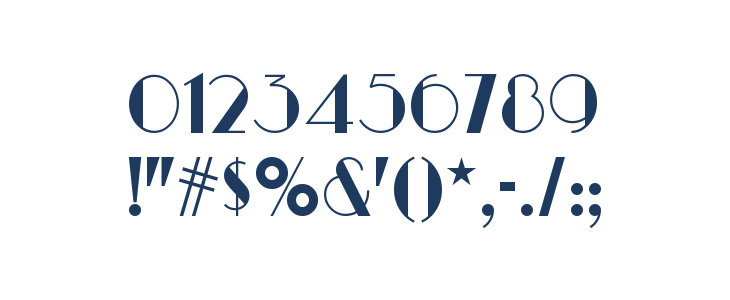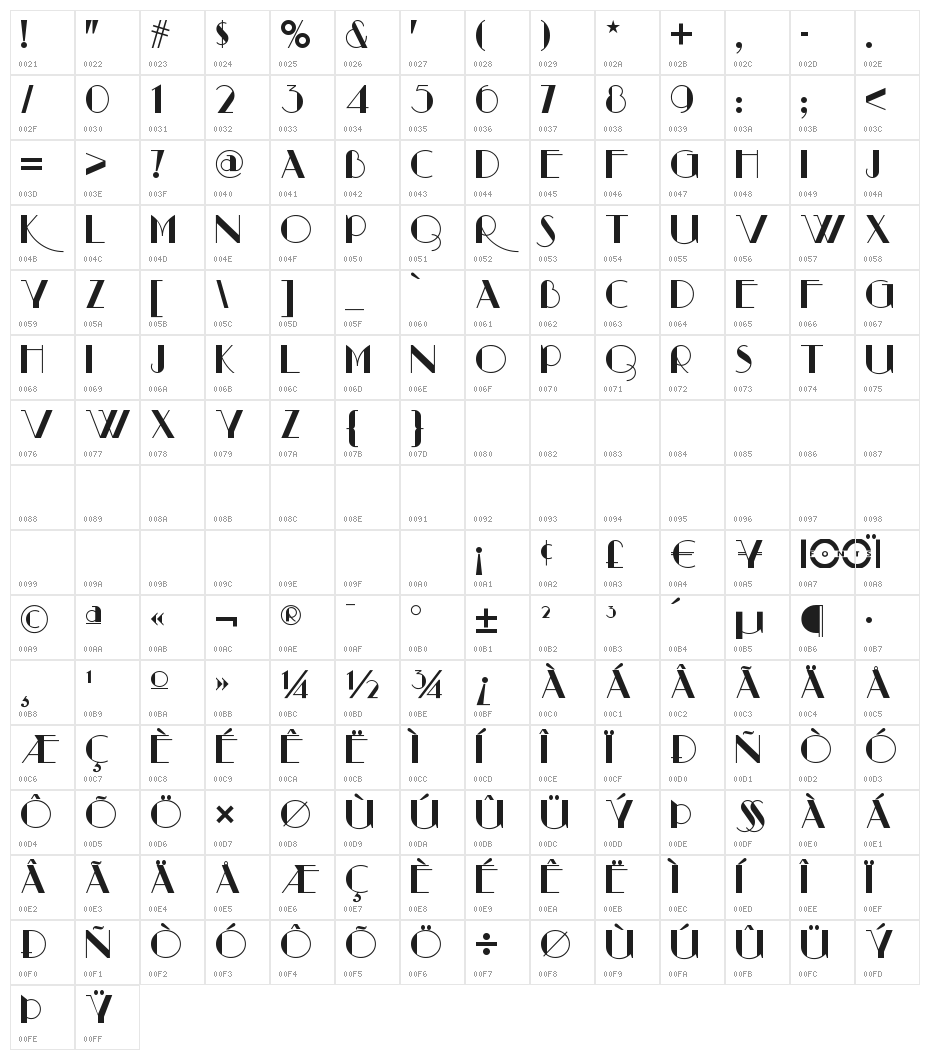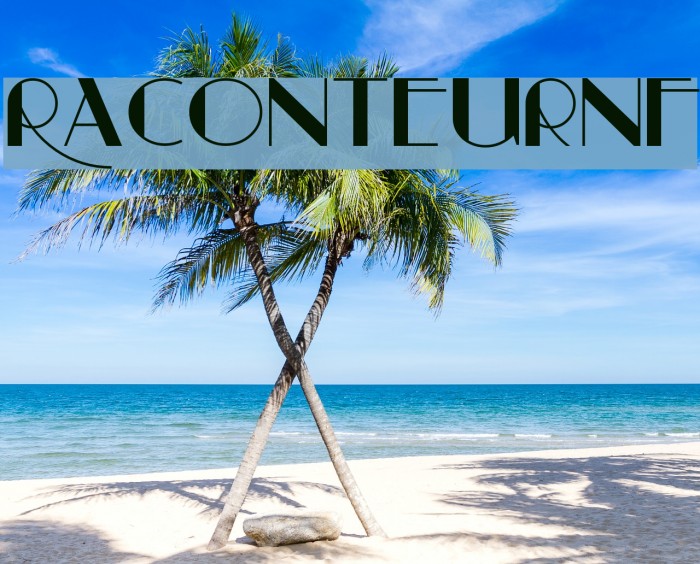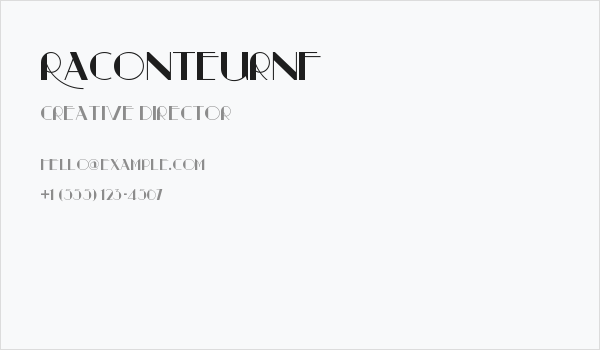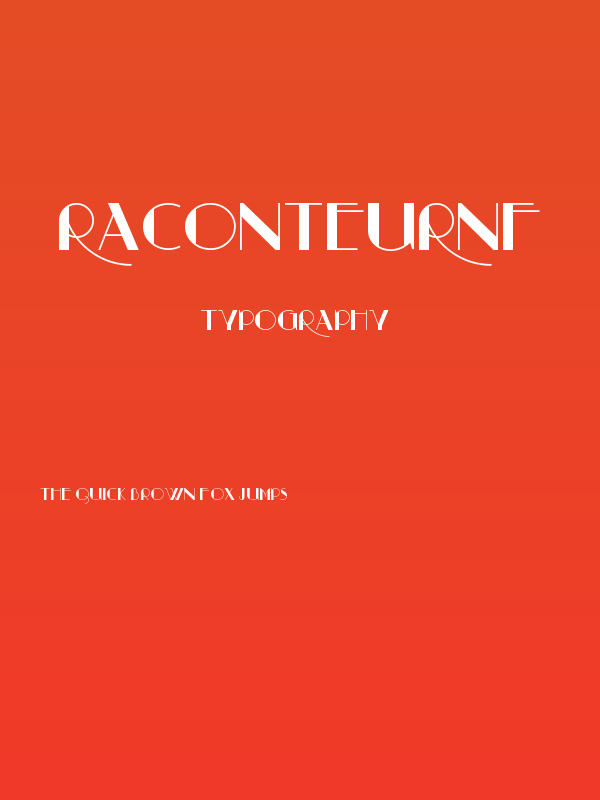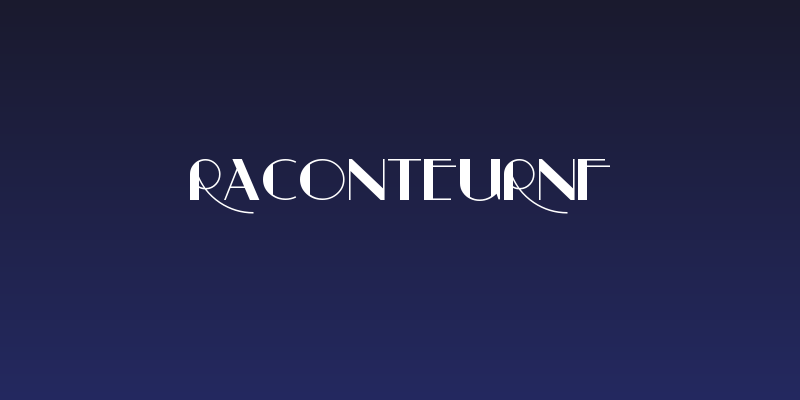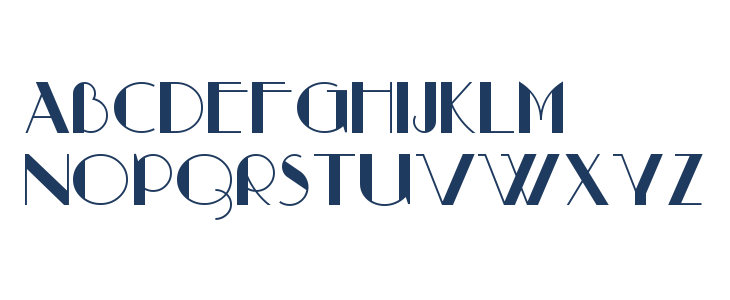
RaconteurNF Font
RaconteurNF Description
This font features a bold and artistic design with a strong emphasis on geometric shapes and high contrast between thick and thin strokes. The uppercase letters are particularly striking, with unique curves and angles that give the typeface a modern and sophisticated appearance. The lowercase letters maintain this geometric style, offering a cohesive look across different text sizes. Numbers and special characters are crafted with the same attention to detail, ensuring versatility in various design contexts. The overall style is decorative, making it suitable for eye-catching headlines and creative projects.
| Overall Style | Modern, Decorative |
| Proposed Projects | Ideal for branding, posters, magazine covers, and any project requiring a modern and artistic touch. |